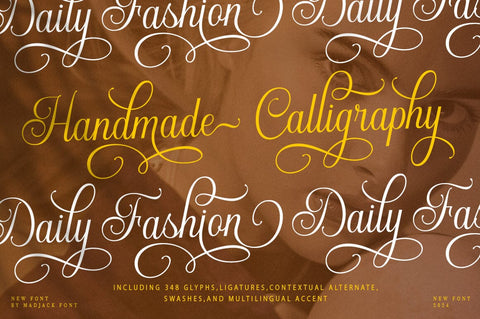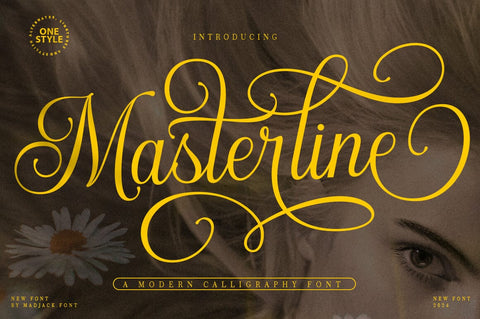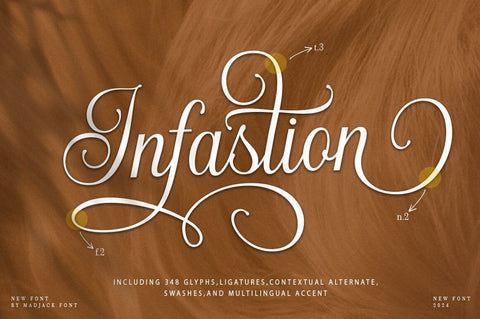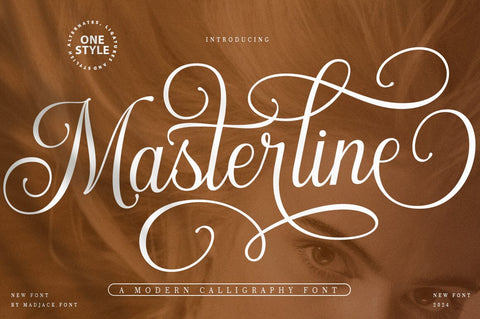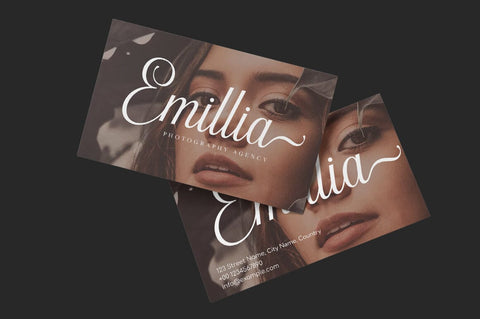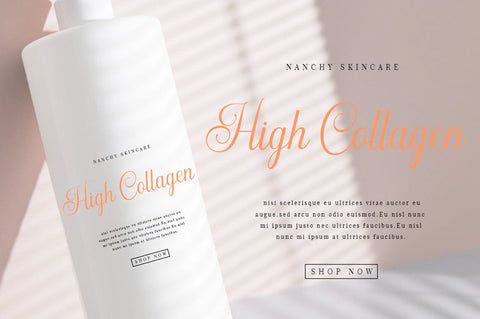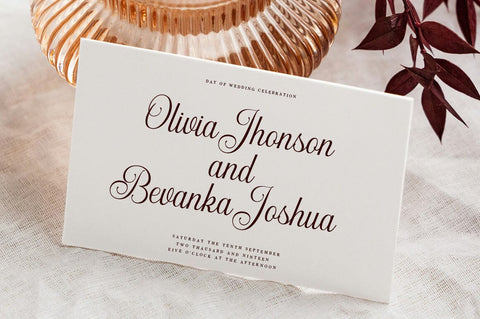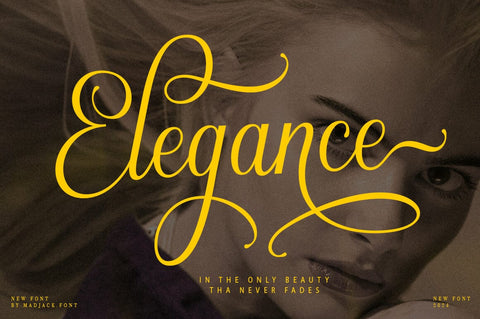
Masterline Calligraphy font
Masterline Calligraphy font is a modern calligraphy design, including Regular. This font is casual and beautiful with swashes. It can be used for various purposes, such as logos, product packaging, wedding invitations, branding, headlines, signage, labels, signatures, book covers, posters, quotes, and more.